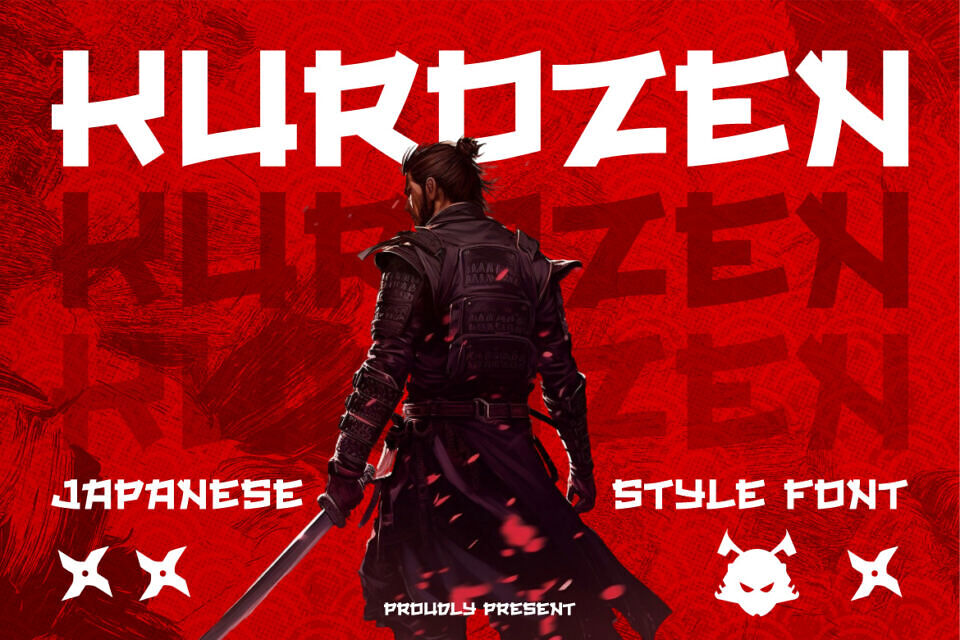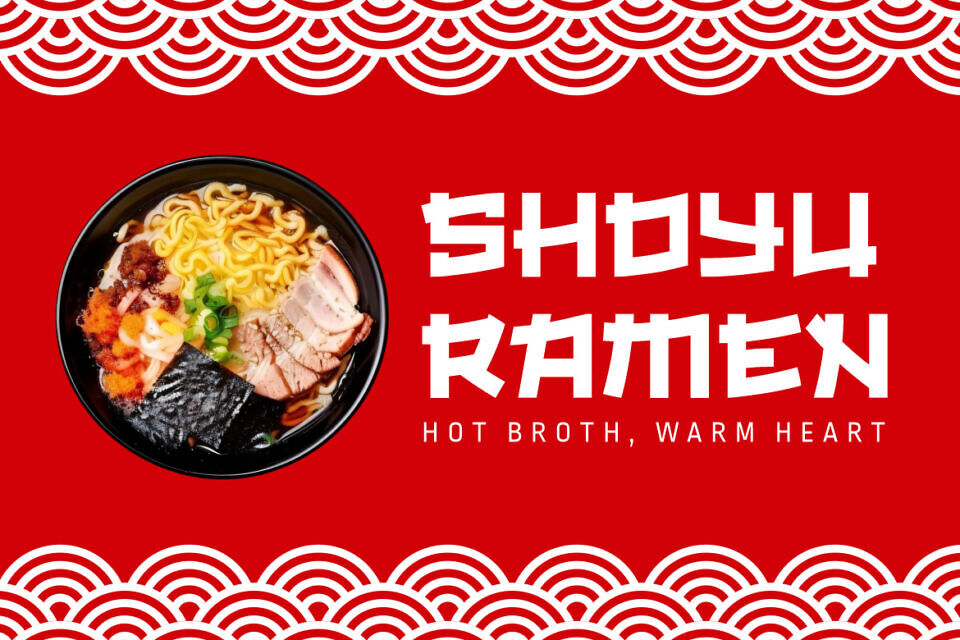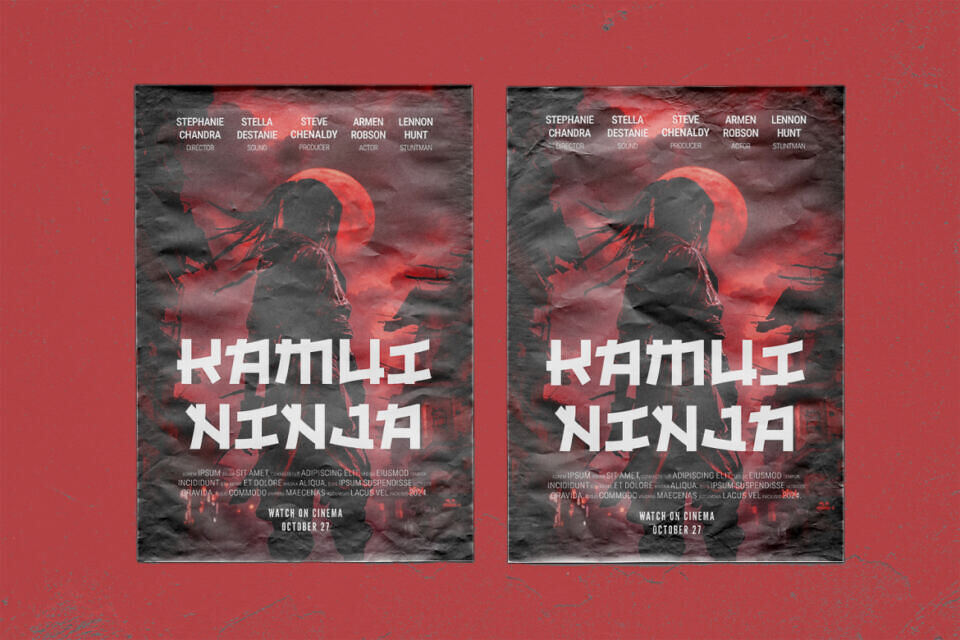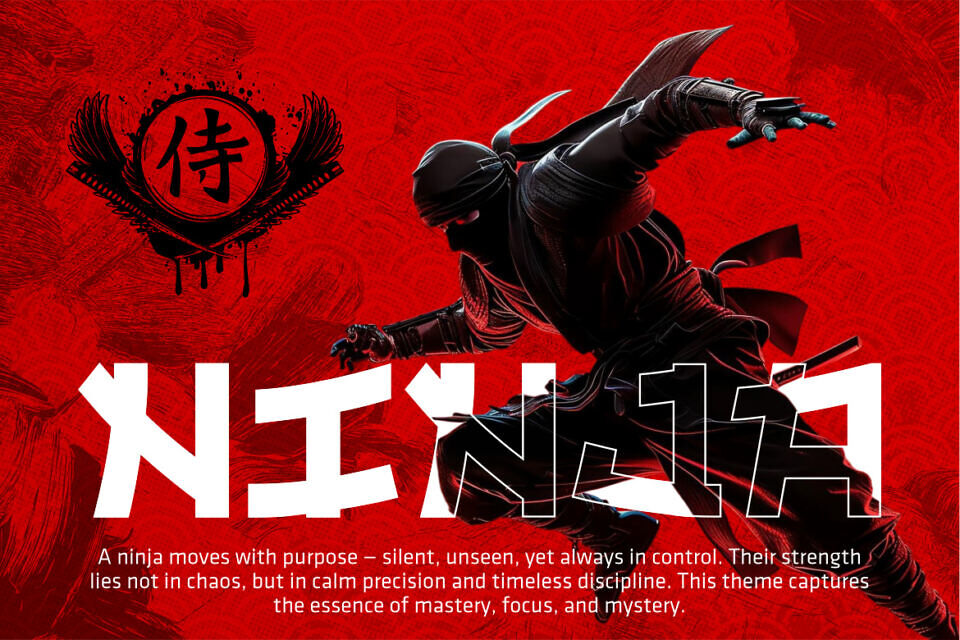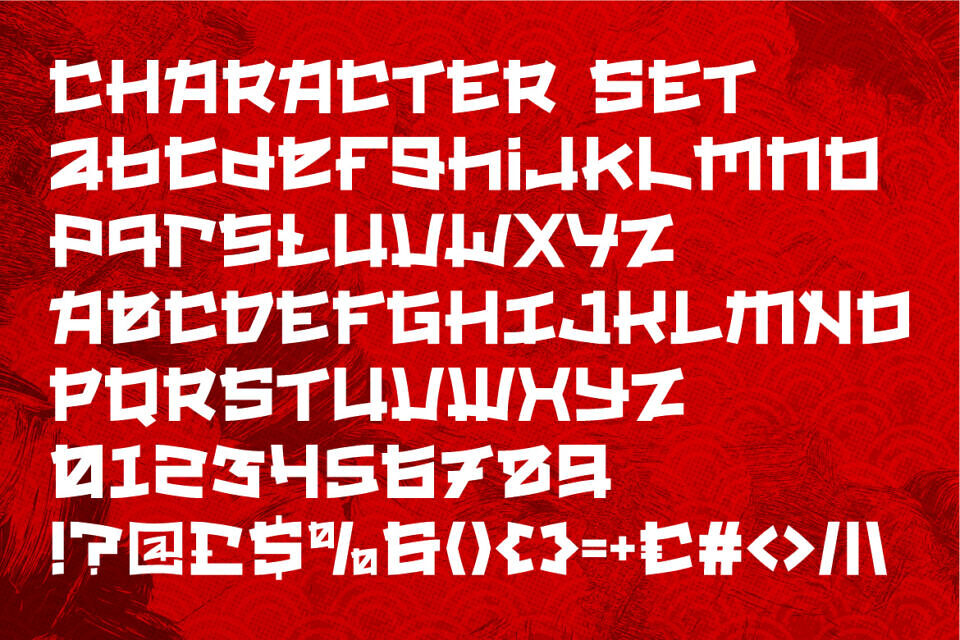
Kurozen Font
Inspired by traditional Eastern designs, Kurozen font boasts bold strokes and dynamic edges, evoking martial precision. Its strong, confident shapes and high-energy visuals make it perfect for projects needing an intense look.
Suitable for various visual branding needs, Kurozen works well for logos, titles, and packaging, adding clarity and edge. It’s also ideal for promotions, advertising, and themed merchandise, particularly for Japanese-inspired or samurai-themed content, delivering a dramatic and authentic tone.